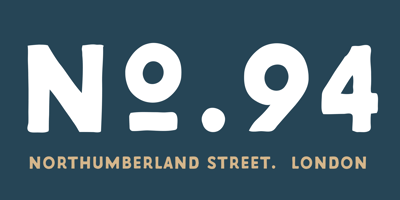
Labours
Labours font
Labours Font Family was designed by Fadhl Waliy ul Haqq and published by Akufadhl. Labours contains 1 styles and family package options. Labours is a bold strong handcrafted typeface, inspired by an old and rustic signs on the street. Designed for any vintage purpose. suitable for Posters, Logotype, T-Shirt design, and many other vintageous design!